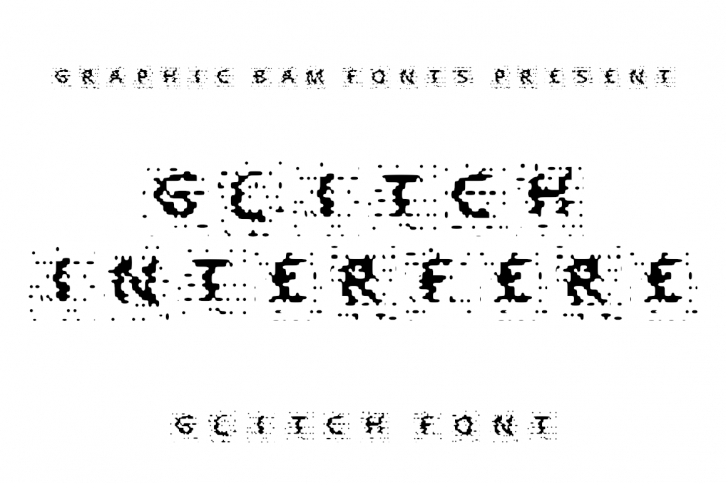
Glitch Interfere is a glitched cool display typeface that comes in both uppercase and lowercase versions. Its distorted feel makes it an ideal font for any hacker, web nerd or glitch art lover! Add it confidently to your projects, and you will love the results.